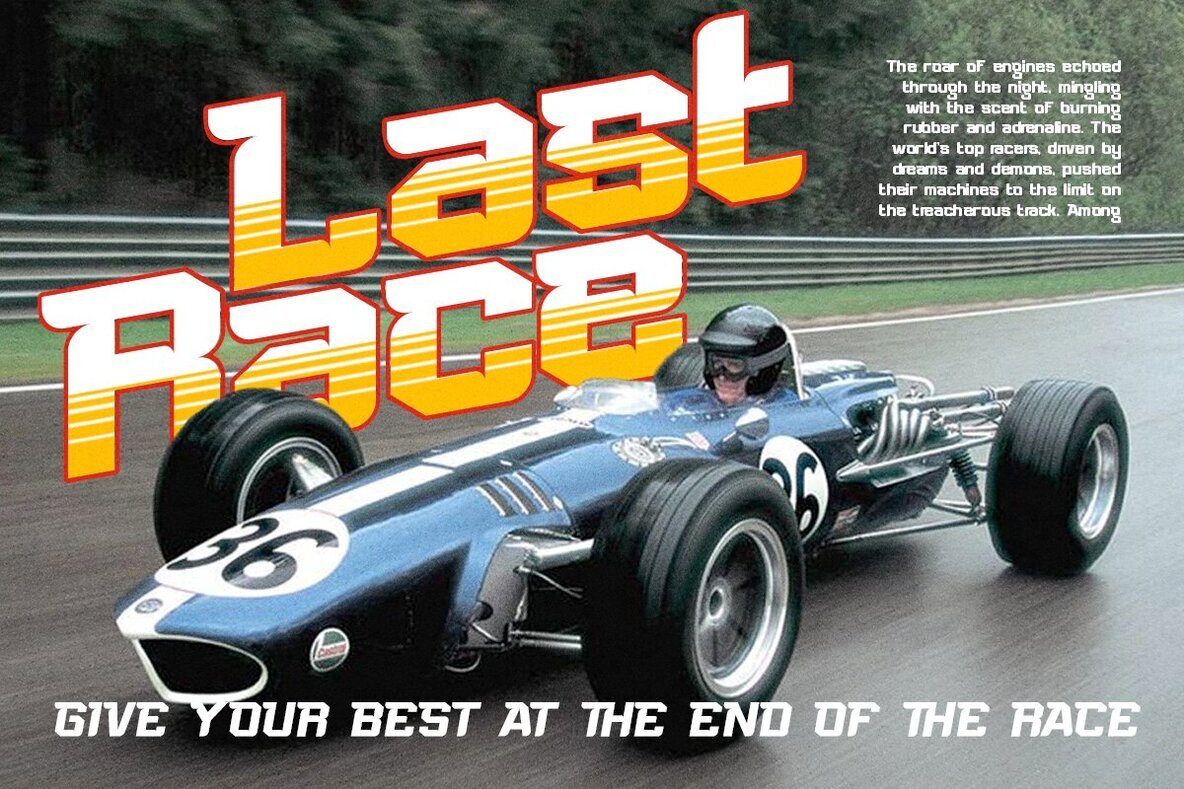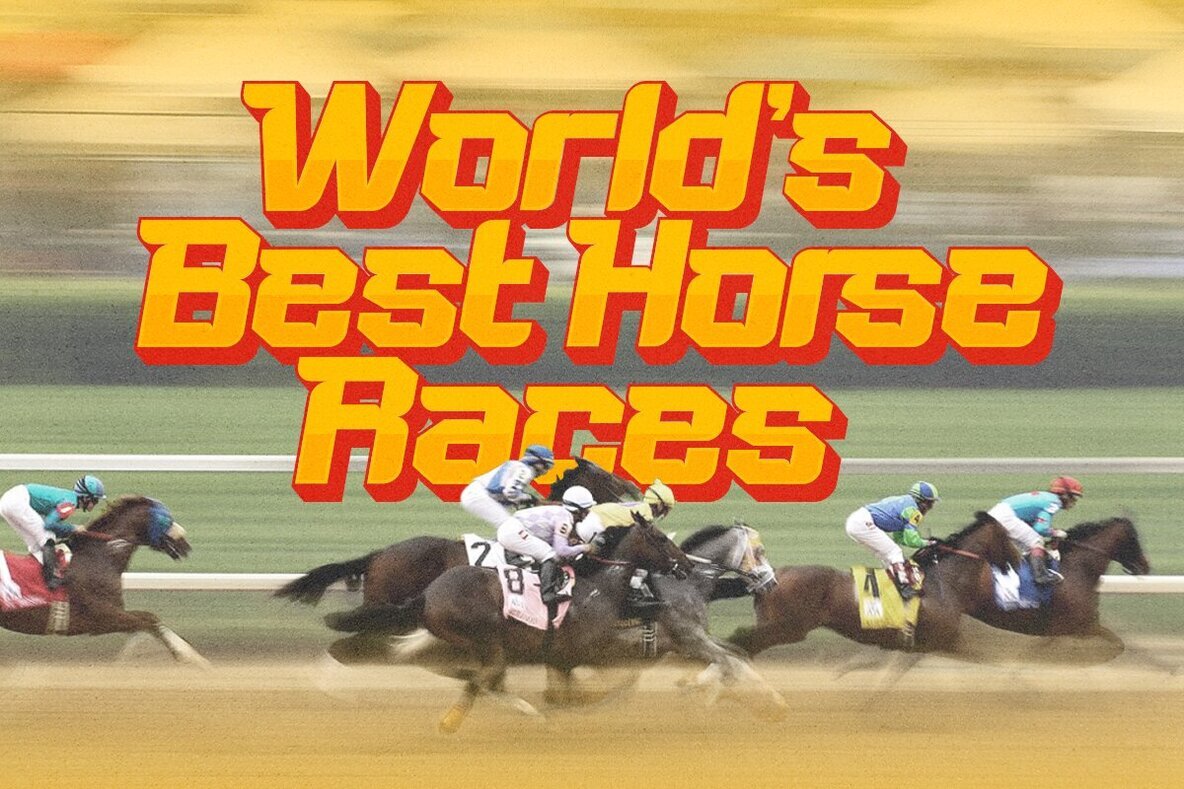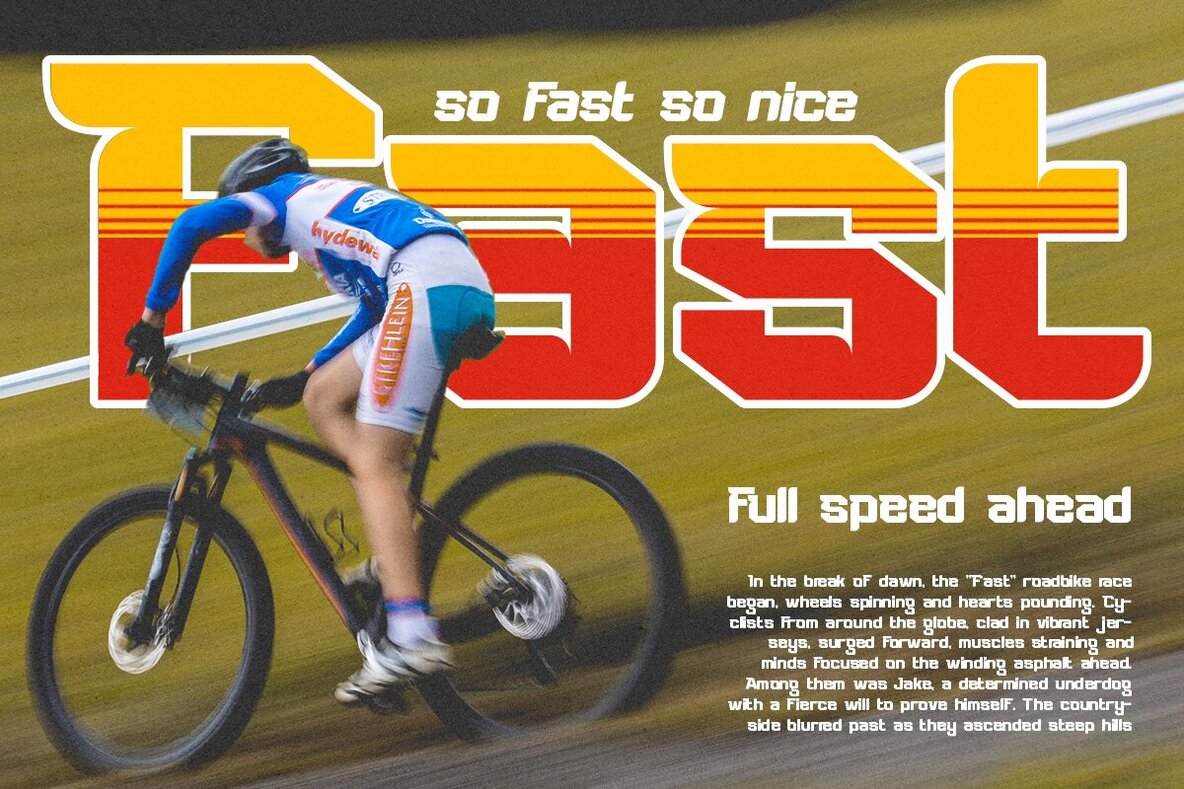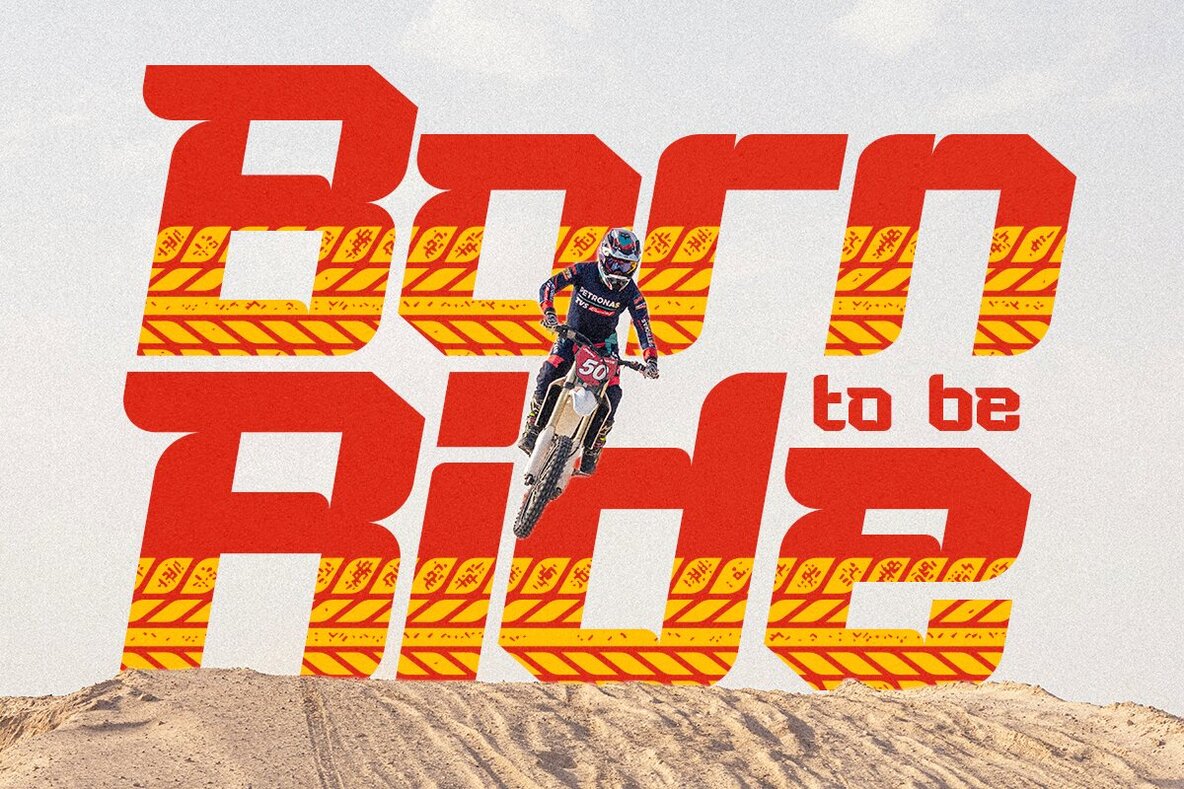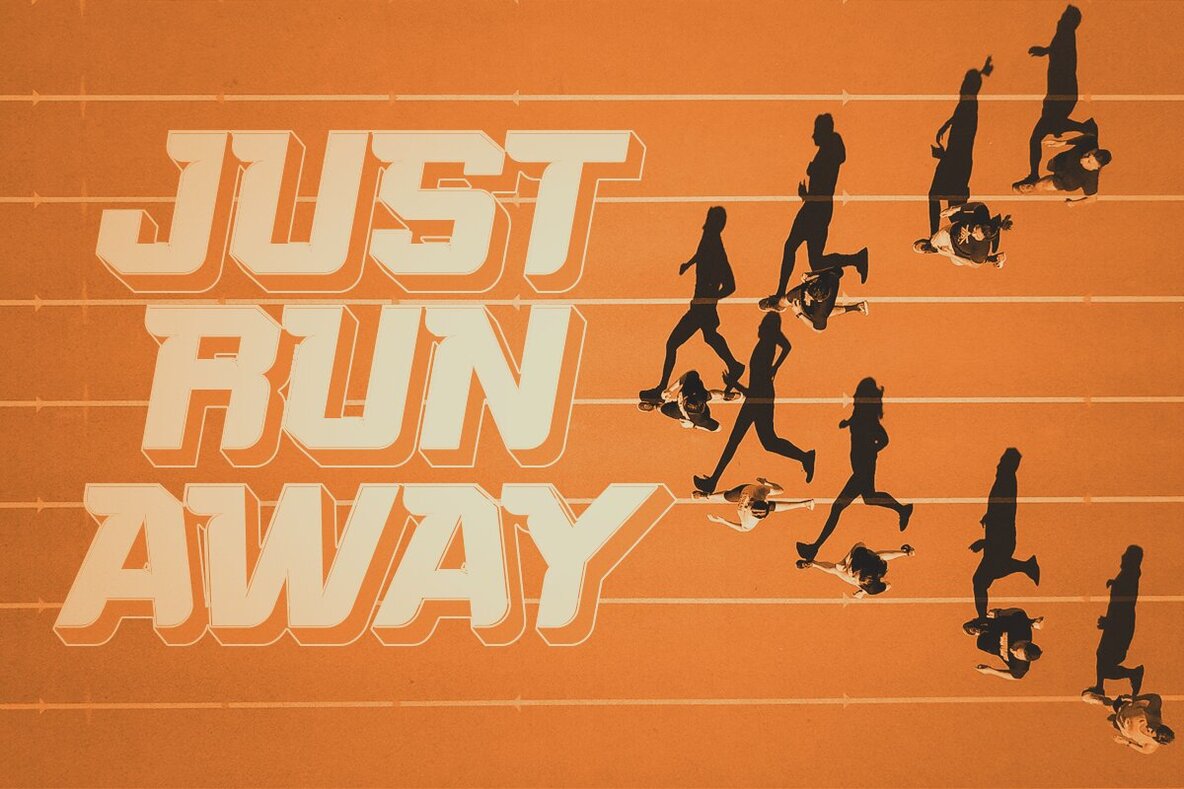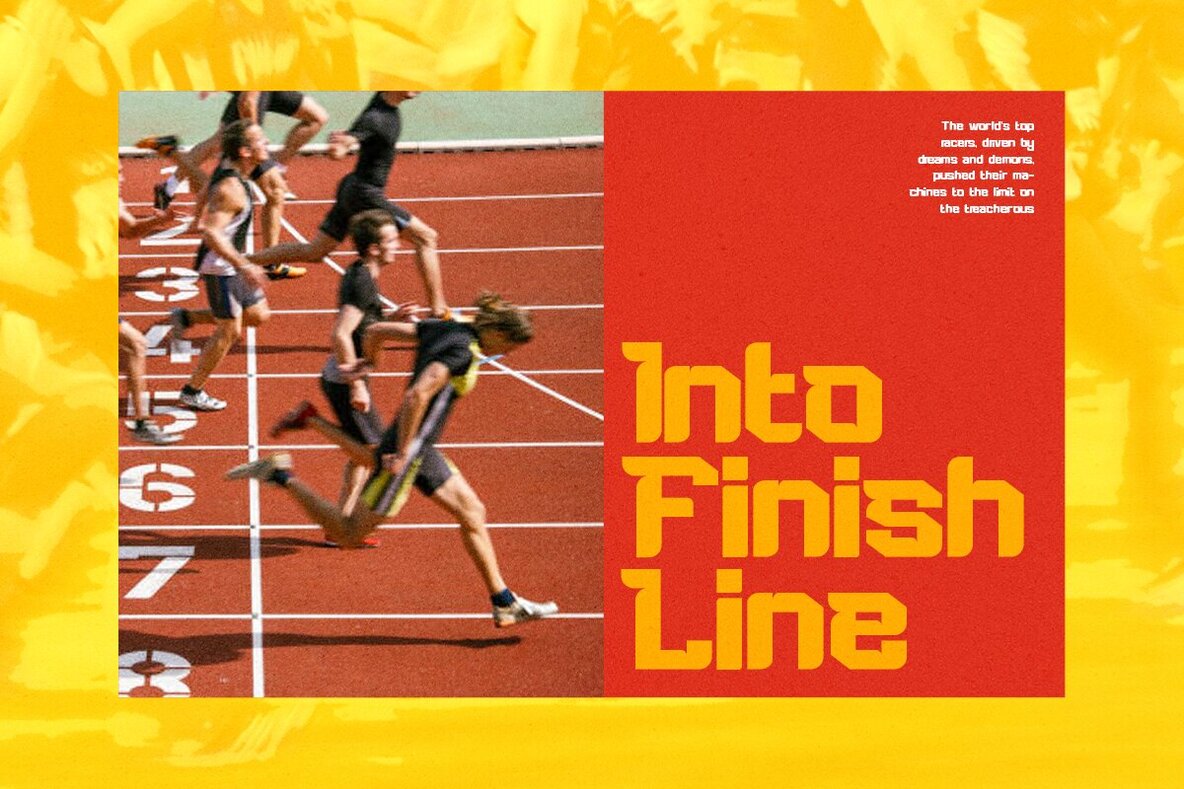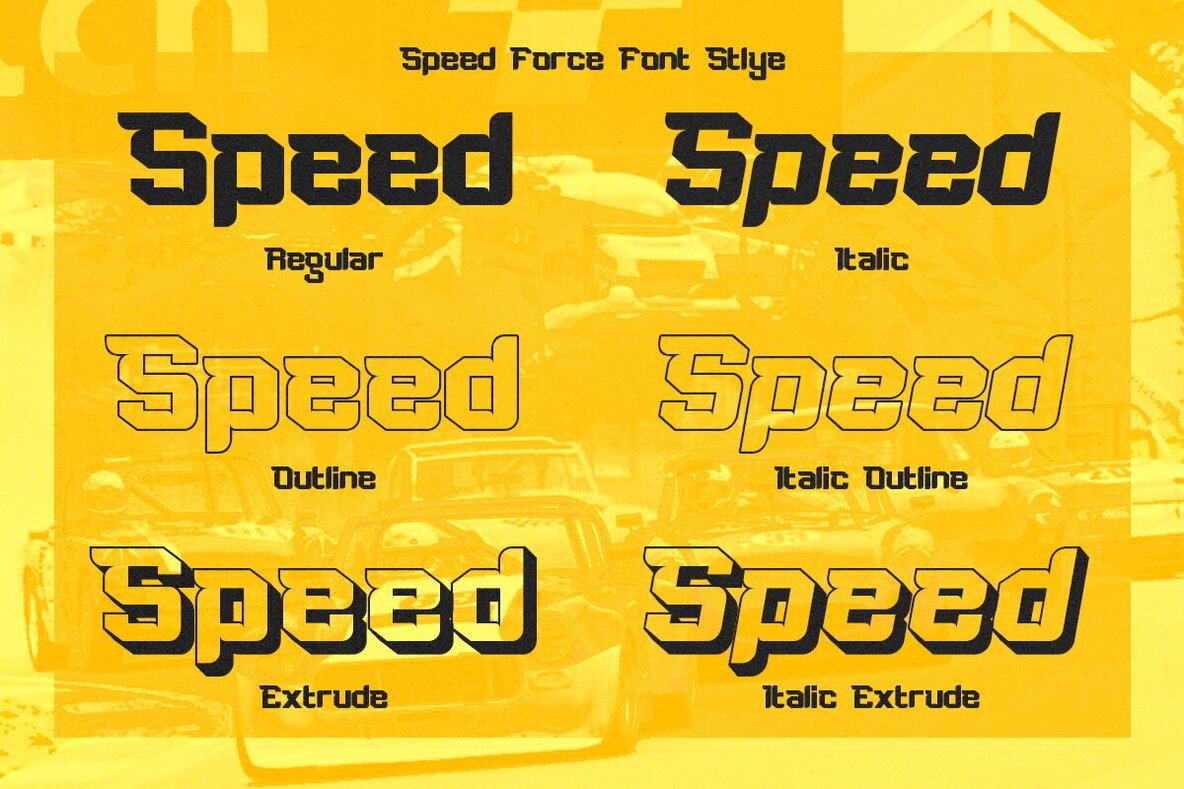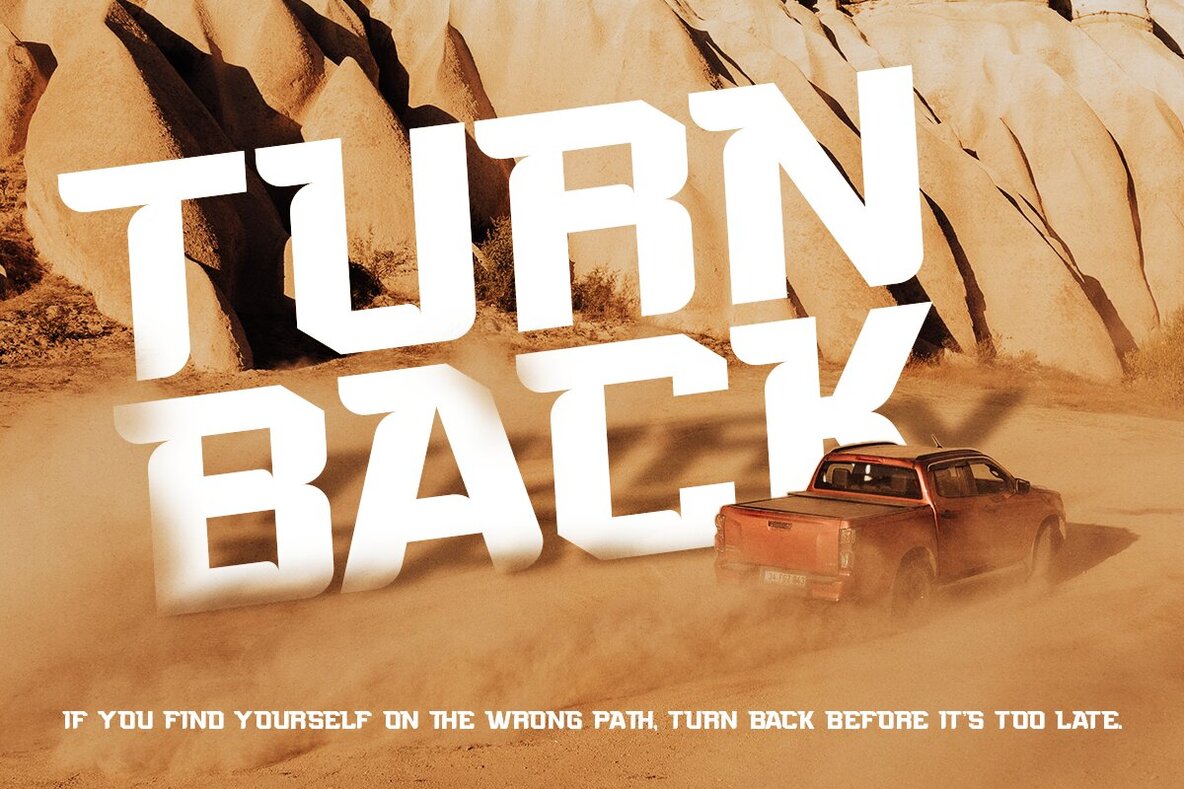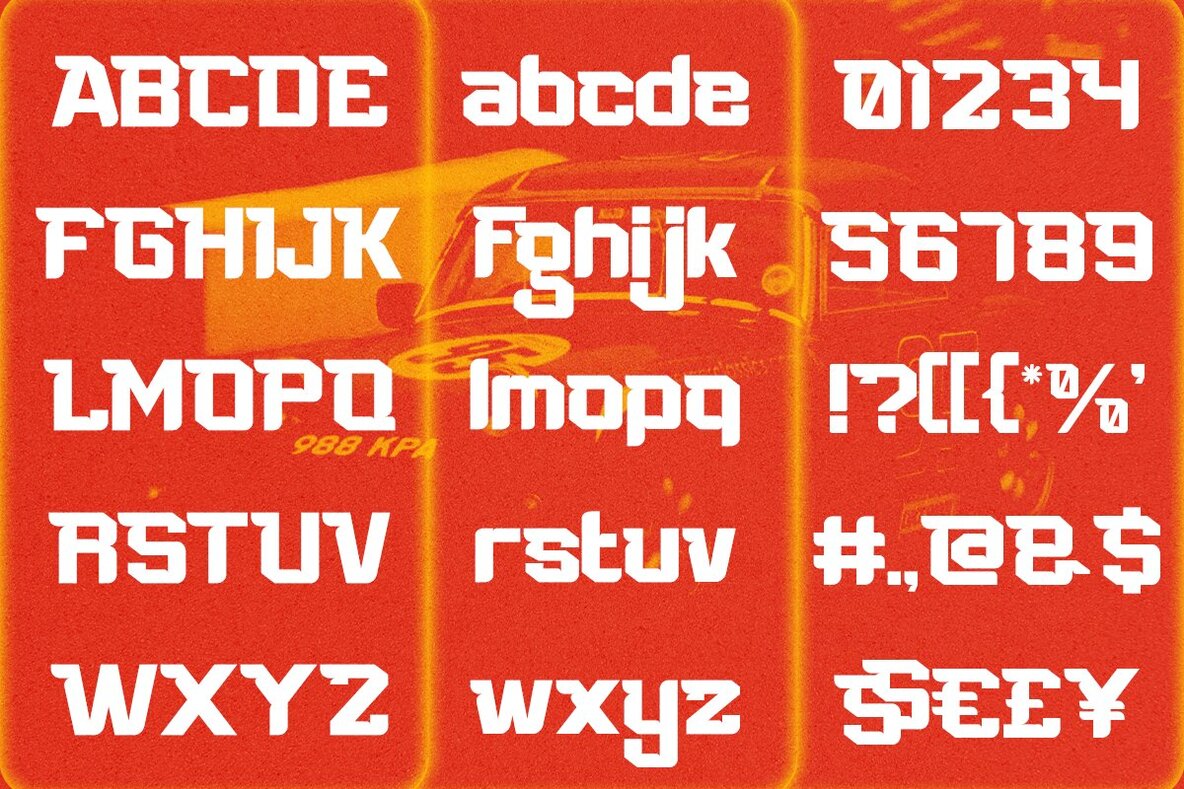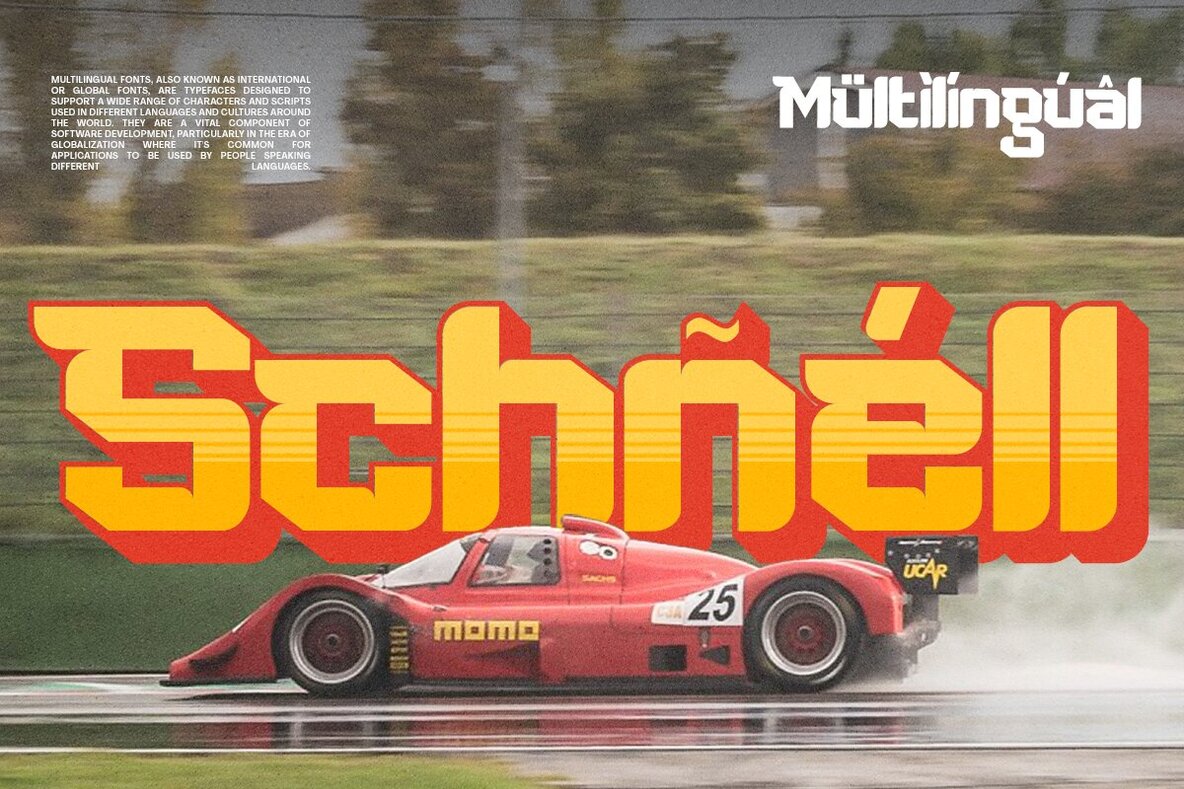
Speed Force Font
Speed Force is a dynamic sports font designed to energize your projects with its bold, modern cutouts. This typeface embodies the essence of speed and power, making it ideal for sports headlines, racing logos, automotive games, and any text that demands a lively, fast-paced appearance. With six distinct styles—Regular, Italic, Outline, Extrude, Italic Outline, and Italic Extrude—Speed Force offers versatile options to create impactful and eye-catching visuals.
Perfect for magazine headlines, logos, and game graphics, Speed Force ensures readability, strength, and a touch of contemporary style that will make your designs unforgettable. The font supports uppercase and lowercase characters, includes multilingual support, and is compatible with both PC and Mac. It can be easily installed and accessed through popular design software like Adobe Illustrator, Adobe Photoshop, Microsoft Word, and Canva, with PUA encoded characters for full accessibility. Enhance your sports-themed projects with Speed Force, the ultimate choice for bold and striking typography.